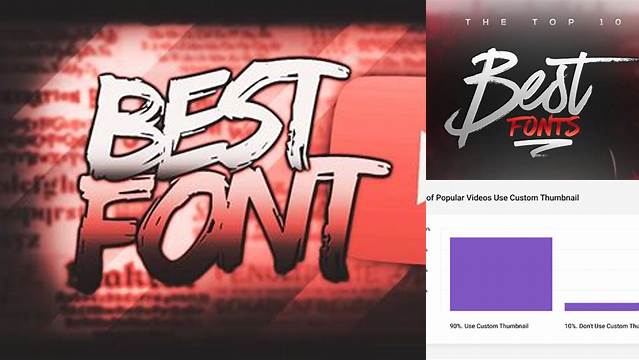
Best Fonts For YouTube Banners: Attract Viewers
Creating a captivating YouTube banner is crucial for making a strong first impression and attracting viewers to your channel. The right font can significantly enhance your banner's visual appeal and effectively communicate your channel's personality and content. Choosing the best fonts for YouTube banners can feel overwhelming, but don't worry, guys! This comprehensive guide will walk you through the top font choices, design tips, and best practices to help you create a banner that grabs attention and strengthens your brand.
Why Font Choice Matters for Your YouTube Banner
Your font choice is more than just an aesthetic decision; it's a powerful tool that communicates your channel's identity and the type of content you create. The best fonts for YouTube banners contribute significantly to the overall visual appeal and professionalism of your channel. Think of your banner as your channel's billboard – it's the first thing visitors see, and it needs to make an impact. A well-chosen font can convey your message clearly, reinforce your brand identity, and entice viewers to explore your content. On the other hand, a poorly chosen font can make your banner look unprofessional, cluttered, or even difficult to read, potentially turning viewers away.
Consider these key factors when selecting a font:
- Readability: First and foremost, your font must be easy to read, especially on smaller screens like smartphones. Avoid overly decorative or complex fonts that can become illegible. The best fonts for YouTube banners are those that maintain clarity even at different sizes.
- Brand Identity: Your font should align with your channel's overall theme and brand. Are you creating a fun, energetic channel? Or a serious, informative one? Your font choice should reflect this. For instance, a tech channel might opt for a clean, modern sans-serif font, while a crafting channel might choose a more playful, hand-lettered style. Your font is a key element in building a consistent and recognizable brand.
- Visual Hierarchy: Use different font sizes and styles to create a visual hierarchy on your banner. This helps viewers quickly grasp the important information, such as your channel name and tagline. The best fonts for YouTube banners are often used in combination – a bold, attention-grabbing font for the channel name and a cleaner, simpler font for supporting text.
- Legibility on Different Devices: YouTube banners are viewed on a variety of devices, from large desktop monitors to small smartphone screens. Ensure your font remains legible across all screen sizes. Test your banner on different devices to see how the font appears.
- Emotional Impact: Fonts evoke different emotions and associations. A bold, strong font can convey confidence and authority, while a softer, more rounded font can create a friendly and approachable vibe. Choose a font that aligns with the emotional tone you want to set for your channel. The best fonts for YouTube banners are those that resonate with your target audience and the type of content you produce.
Top Font Categories for YouTube Banners
To help you narrow down your choices, let's explore some of the most popular and effective font categories for YouTube banners. Understanding these categories will give you a solid foundation for selecting the perfect font for your channel.
1. Sans-Serif Fonts
Sans-serif fonts are characterized by their clean, modern lines and lack of serifs (the small decorative strokes at the ends of letters). They are highly legible, making them a popular choice for digital displays and especially suited for the best fonts for YouTube banners. Sans-serif fonts often convey a sense of professionalism, clarity, and simplicity, making them ideal for channels focused on technology, business, education, or any content where a clean, modern aesthetic is desired.
- Examples: Arial, Helvetica, Montserrat, Open Sans, Lato, Roboto. These are some of the most widely used sans-serif fonts, known for their versatility and readability. They work well in a variety of contexts and can be used for both headlines and body text.
- Best for: Tech channels, business channels, educational content, tutorials, vlogs, gaming channels (especially if aiming for a modern look). The clean lines of sans-serif fonts give a professional touch that appeals to a broad audience.
- Why they work: Sans-serif fonts are highly legible and scalable, ensuring your channel name and tagline remain clear on all devices. Their simplicity also allows them to pair well with other design elements, such as logos and graphics. When you're looking for best fonts for YouTube banners that offer clarity and a contemporary feel, sans-serif fonts are a solid choice.
2. Serif Fonts
Serif fonts have small decorative strokes (serifs) at the ends of letters. They are often associated with traditional typography and convey a sense of formality, elegance, and trustworthiness. While not as commonly used in digital banners as sans-serif fonts, serif fonts can add a touch of sophistication and class to your YouTube banner, especially if your content aligns with these qualities. They can be particularly effective for channels focused on literature, history, arts, or lifestyle topics.
- Examples: Times New Roman, Georgia, Playfair Display, Merriweather, Crimson Text. These fonts have a classic and timeless appeal, making them suitable for channels that want to project authority and experience.
- Best for: Channels focused on literature, history, arts, lifestyle, tutorials with a classic feel, channels targeting an older demographic. If you want to convey tradition and sophistication, serif fonts are among the best fonts for YouTube banners to consider.
- Why they work: Serif fonts can add a touch of elegance and credibility to your banner. However, it's crucial to choose a serif font that remains legible on smaller screens. Opt for bolder variations or larger font sizes to ensure readability. Using a serif font for your channel name and pairing it with a sans-serif font for your tagline can create a visually appealing contrast.
3. Script Fonts
Script fonts resemble handwriting and can add a personal, creative, and elegant touch to your YouTube banner. They range from formal calligraphy to casual brushstrokes, offering a wide variety of styles to choose from. Script fonts are best used sparingly, primarily for channel names or taglines, as they can be less legible for large blocks of text. They are perfect for channels focused on beauty, fashion, lifestyle, DIY, or anything where a personal and artistic flair is desired.
- Examples: Brush Script, Pacifico, Lobster, Great Vibes, Allura. These fonts evoke creativity and personality, making them ideal for channels that want to showcase their unique style.
- Best for: Beauty channels, fashion channels, lifestyle channels, DIY channels, cooking channels, vlogs with a personal touch. When used correctly, script fonts can be among the best fonts for YouTube banners, adding a distinct and memorable element.
- Why they work: Script fonts can instantly add personality and charm to your banner. However, readability is crucial. Choose a script font that is relatively easy to read and avoid overly ornate or thin scripts. Pair a script font with a simpler sans-serif or serif font for supporting text to ensure a balanced and legible design.
4. Display Fonts
Display fonts are designed for eye-catching headlines and titles. They come in a wide range of styles, from bold and impactful to quirky and playful. Display fonts are perfect for making a statement and grabbing attention, but they should be used sparingly and primarily for your channel name or main tagline. Overusing display fonts can make your banner look cluttered and difficult to read. They are ideal for channels that want to project a strong personality or create a visually striking banner.
- Examples: Bebas Neue, Impact, Oswald, Montserrat Black, ChunkFive. These fonts are designed to stand out and make a bold statement, making them excellent choices for best fonts for YouTube banners that need to grab attention.
- Best for: Gaming channels, entertainment channels, channels targeting a younger audience, channels that want to make a bold statement. If you're looking to inject energy and excitement into your banner, display fonts are the way to go.
- Why they work: Display fonts are designed to make an impact. Choose a display font that reflects your channel's personality and style. Pair it with a simpler font for supporting text to maintain readability. Ensure the display font is legible at different sizes and on various devices. They are undoubtedly among the best fonts for YouTube banners when used strategically to highlight key information.
Tips for Choosing the Best Fonts for Your YouTube Banner
Now that we've explored different font categories, let's dive into some practical tips for selecting the perfect fonts for your YouTube banner. These tips will help you create a visually appealing and effective banner that represents your channel well.
- Consider Your Brand Identity: Your font choice should align with your channel's brand identity and the type of content you create. Think about the overall tone and message you want to convey. Are you creating a professional and informative channel? A fun and entertaining one? Your font should reflect these qualities. If you have an existing logo or brand guidelines, ensure your font choices complement them. The best fonts for YouTube banners are those that seamlessly integrate with your overall branding.
- Prioritize Readability: Readability is paramount. Your font must be easy to read, especially on smaller screens. Avoid overly decorative or complex fonts that can become illegible. Test your banner on different devices to ensure your font remains clear and readable. The best fonts for YouTube banners are useless if viewers can't easily read your channel name and tagline.
- Use Font Pairing Strategically: Combining different fonts can create visual interest and hierarchy, but it's essential to do it strategically. A general rule of thumb is to pair a display or script font with a simpler sans-serif or serif font. Avoid using more than two or three fonts in your banner, as this can create a cluttered look. The goal is to create a harmonious and balanced design. The best fonts for YouTube banners often work in pairs, complementing each other to create a cohesive visual.
- Pay Attention to Font Size and Spacing: Font size and spacing play a crucial role in readability. Ensure your font is large enough to be easily read on different devices. Adjust the letter spacing (tracking) and line spacing (leading) to improve readability and visual appeal. Too little spacing can make your text look cramped, while too much spacing can make it look disjointed. Experiment with different sizes and spacing until you find the right balance. The best fonts for YouTube banners are those that are not only visually appealing but also thoughtfully sized and spaced.
- Test Your Banner on Different Devices: As mentioned earlier, your YouTube banner will be viewed on a variety of devices, from large desktop monitors to small smartphone screens. Always test your banner on different devices to ensure your font remains legible and your design looks good across all platforms. What looks great on a large screen might not translate well to a smaller screen, so testing is crucial. The best fonts for YouTube banners are those that maintain their clarity and impact regardless of the viewing device.
Recommended Font Combinations for YouTube Banners
To give you some practical inspiration, here are a few recommended font combinations that work well for YouTube banners. These combinations offer a starting point for creating a visually appealing and effective banner design.
- Montserrat (Sans-Serif) + Montserrat Light (Sans-Serif): This combination offers a clean and modern look. Use Montserrat for your channel name and Montserrat Light for your tagline or supporting text.
- Bebas Neue (Display) + Open Sans (Sans-Serif): Bebas Neue is a bold and impactful display font that pairs well with the clean and legible Open Sans. Use Bebas Neue for your channel name and Open Sans for your tagline or description.
- Playfair Display (Serif) + Lato (Sans-Serif): This combination creates an elegant and sophisticated look. Use Playfair Display for your channel name and Lato for supporting text.
- Pacifico (Script) + Roboto (Sans-Serif): Pacifico is a casual and friendly script font that pairs well with the versatile Roboto. Use Pacifico for your channel name and Roboto for your tagline or other information.
- Oswald (Sans-Serif) + Merriweather (Serif): This combination offers a balanced and professional look. Use Oswald for your channel name and Merriweather for your tagline or description.
Experiment with these combinations and others to find what works best for your channel's brand and content. Remember to prioritize readability and ensure your font choices align with your overall aesthetic. Finding the best fonts for YouTube banners is a process of experimentation and refinement.
Tools and Resources for Finding and Using Fonts
Fortunately, numerous tools and resources are available to help you find and use the best fonts for YouTube banners. These resources can streamline your design process and ensure you have access to a wide variety of high-quality fonts.
- Google Fonts: Google Fonts is a free library of over 1,000 fonts that are open source and easy to use. It's an excellent resource for finding a wide range of sans-serif, serif, script, and display fonts for your YouTube banner. The fonts are web-friendly and can be easily embedded into your designs.
- Adobe Fonts: If you have an Adobe Creative Cloud subscription, you have access to Adobe Fonts, a vast library of high-quality fonts. Adobe Fonts offers a wide range of fonts from various foundries and designers, ensuring you have plenty of options to choose from.
- Font Squirrel: Font Squirrel is another excellent resource for free, commercially licensed fonts. They offer a curated collection of fonts that are free for both personal and commercial use, making it a great option for YouTubers on a budget.
- Canva: Canva is a popular online design tool that offers a wide range of templates, graphics, and fonts for creating YouTube banners and other visual content. Canva's user-friendly interface makes it easy to experiment with different fonts and designs.
- PicMonkey: PicMonkey is another online design tool that offers a range of font options and design features. It's a great option for creating professional-looking YouTube banners without requiring advanced design skills.
Final Thoughts: Making Your YouTube Banner Stand Out
Choosing the best fonts for YouTube banners is a crucial step in creating a visually appealing and effective channel presence. By considering your brand identity, prioritizing readability, and using font pairing strategically, you can create a banner that grabs attention and communicates your channel's personality. Experiment with different font categories, combinations, and design tools to find the perfect font choices for your channel. Remember, your YouTube banner is your channel's first impression, so make it count!
By following the tips and recommendations in this guide, you'll be well-equipped to select fonts that enhance your banner's visual appeal, reinforce your brand, and ultimately attract more viewers to your content. So go ahead, guys, and create a YouTube banner that truly stands out!